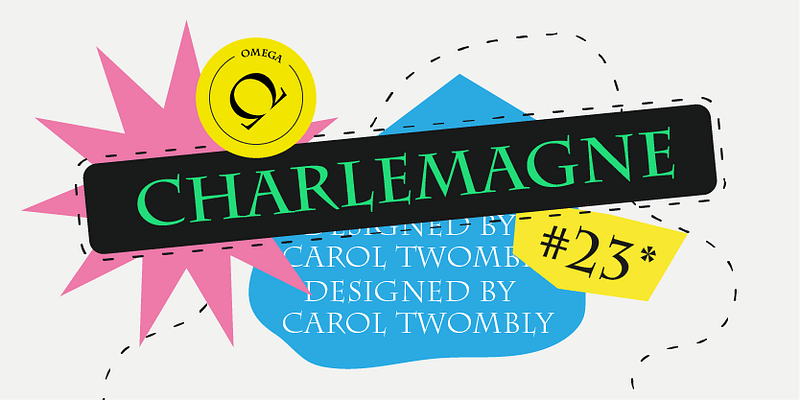
Charlemagne specimen
Charlemagne
During the reign of the Emperor Charlemagne in the eighth and ninth centuries, the use of classical roman letterforms was revived. These letterforms were the basis of the highly refined versal capitals of late tenth-century England, which were the inspiration for Carol Twombly's 1989 Adobe Originals typeface. Charlemagne has spiky serifs, but retains clean lines and proportions. Its considerable charm makes it ideal for advertising, packaging, and other display uses that require a unique look.